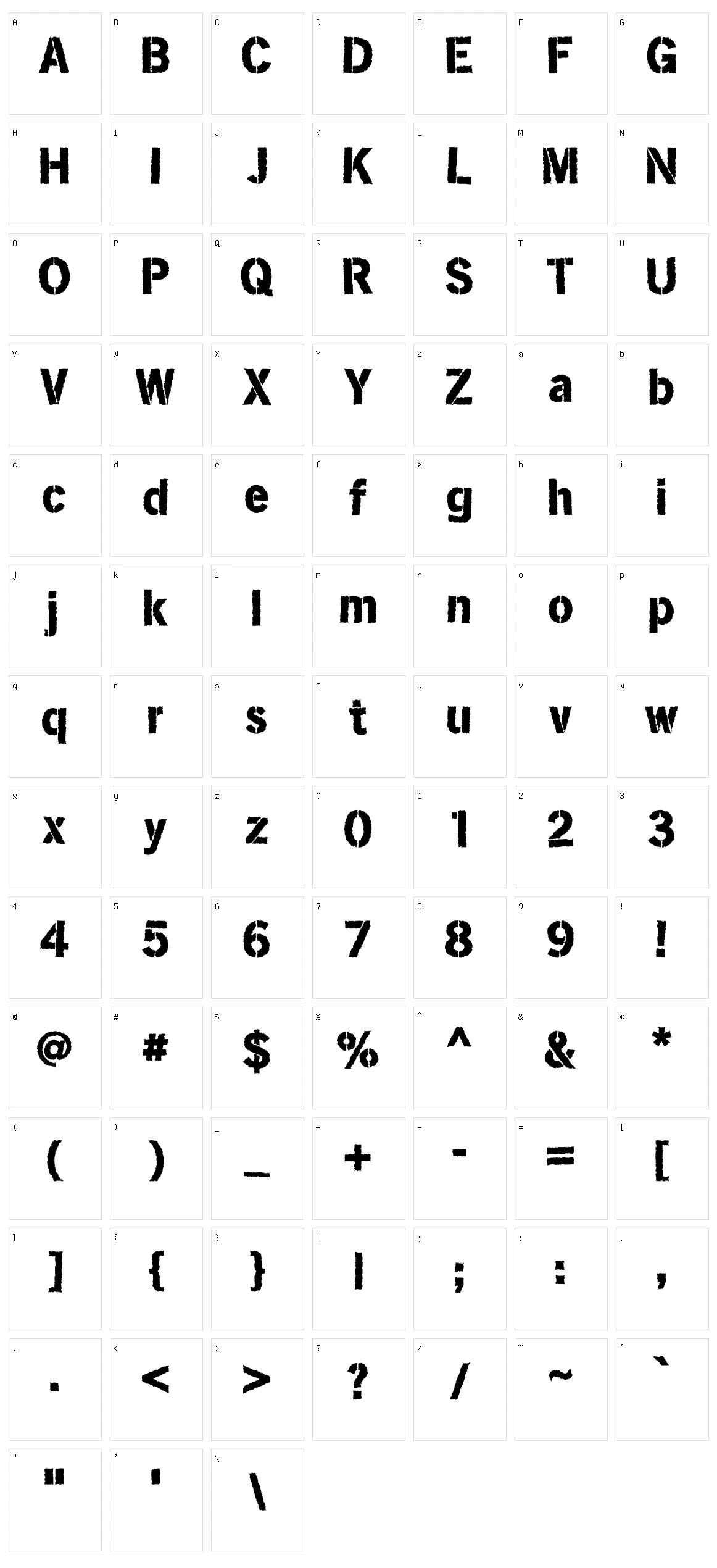
The free font Get Rekt is carefully designed by Jayde Garrow, showcasing a thoughtful balance of creativity and usability and falls under the Stencil font style. When you download the ZIP file, it contains only 125.58 KB of font files, making it lightweight and quick to download. Please review the license details below to understand permitted usage and distribution rights. If license information is not available, we recommend using this font for personal projects only or contacting the author directly for commercial usage permissions.